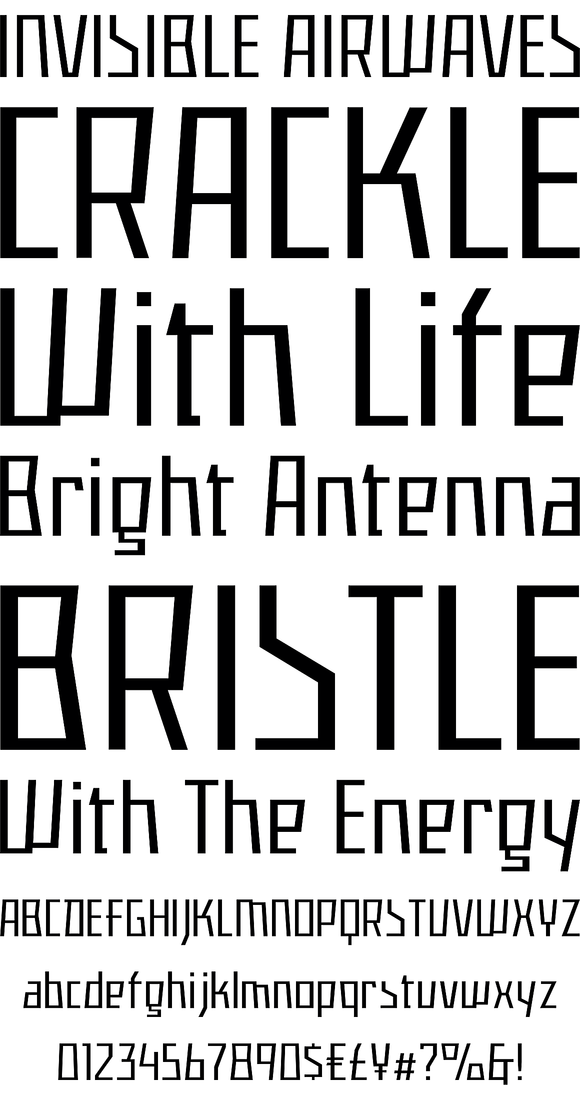
Fermo TRF
Taking into consideration some complaints about lack of capital letters and deficiency of heavier weight styles, Fermo™ typeface was redesigned to replace the existing font, dated 2002. New Fermo includes two subfamilies – Fermo TRF and Fermo-Uni TRF. Both fonts now consist of three weight styles – light, regular and bold – with significant contrast. During the updating process some minor glyph shapes’ adjustments and changes have been made. Fermo TRF’s main distinctions from the previous font are the new capital letters and additional weight (light) style. Fermo-Uni TRF is a unicase font with an additional lightweight style. Fermo is recommended for use as a display font. In large size settings negative tracking is recommended.